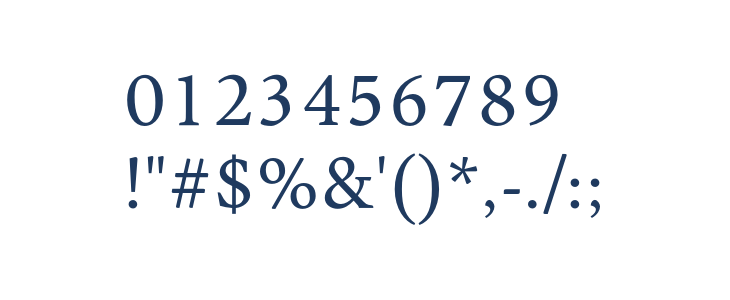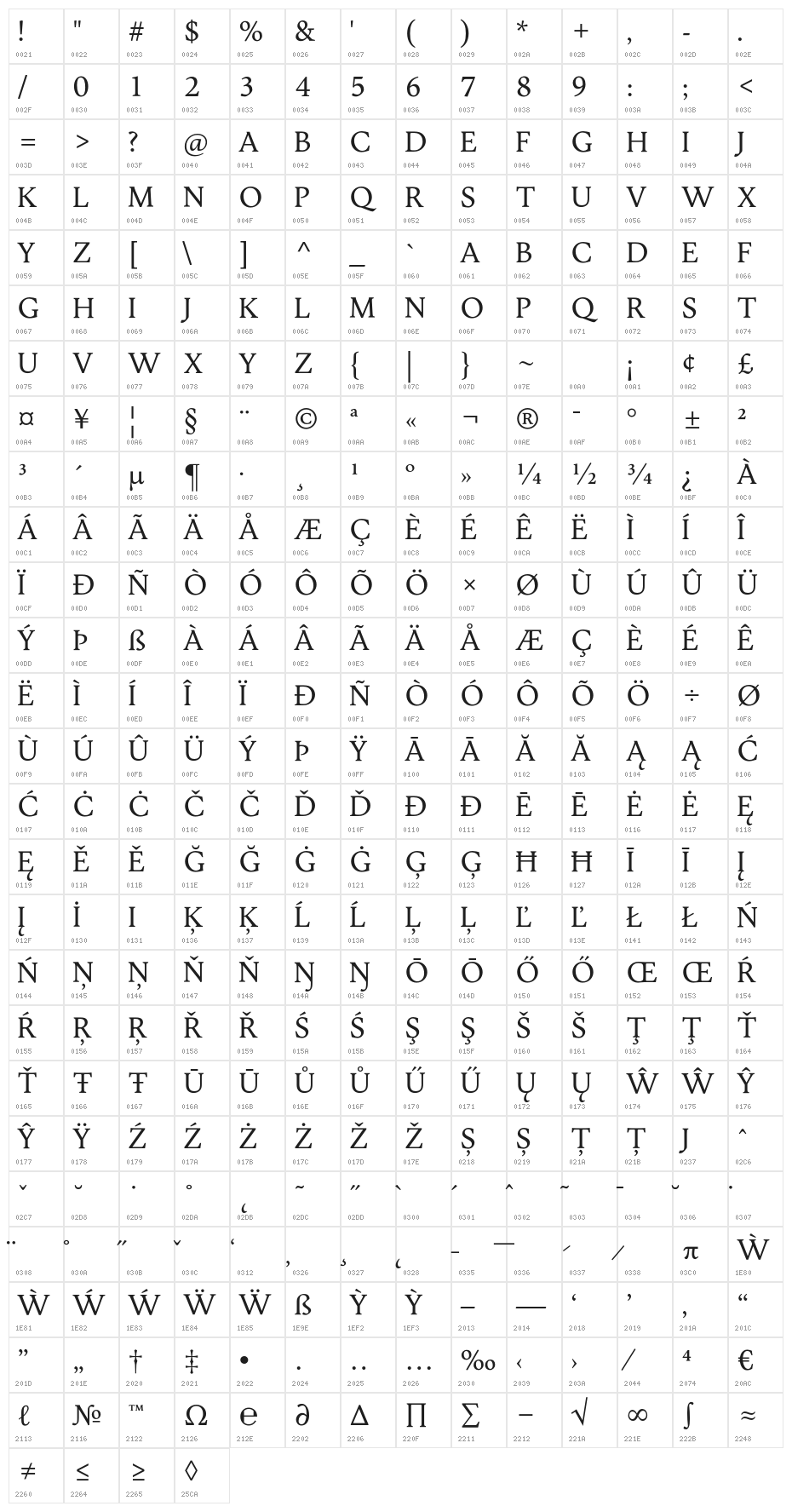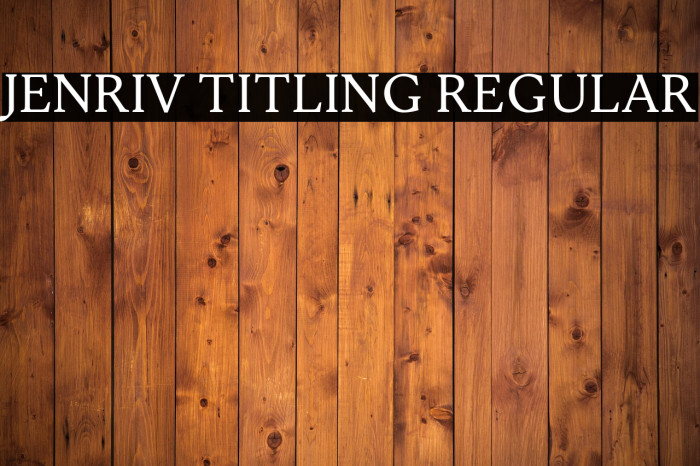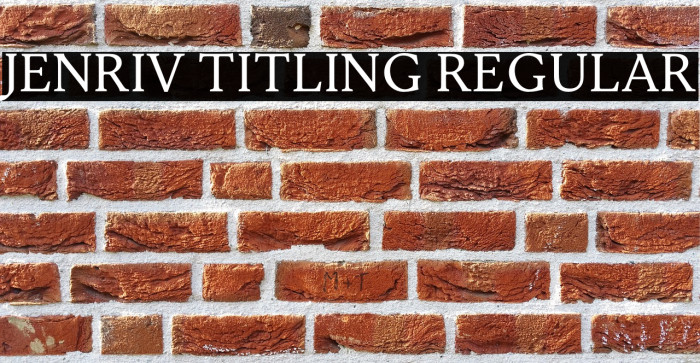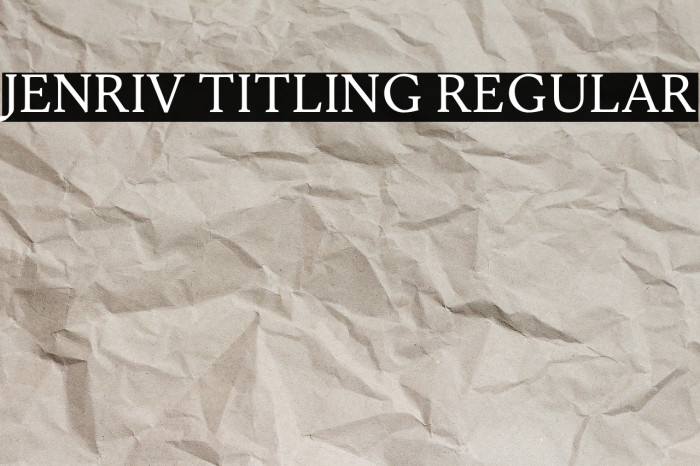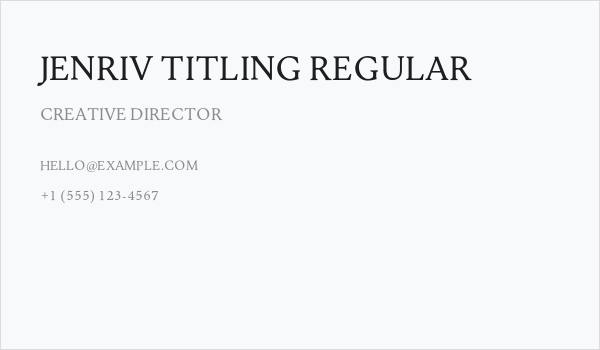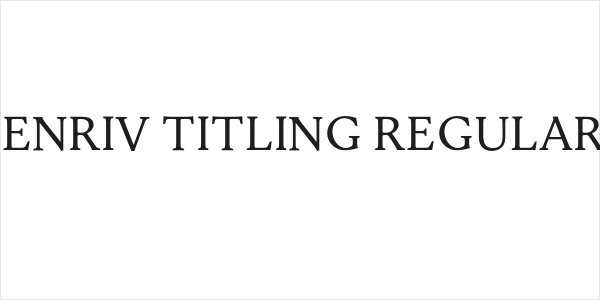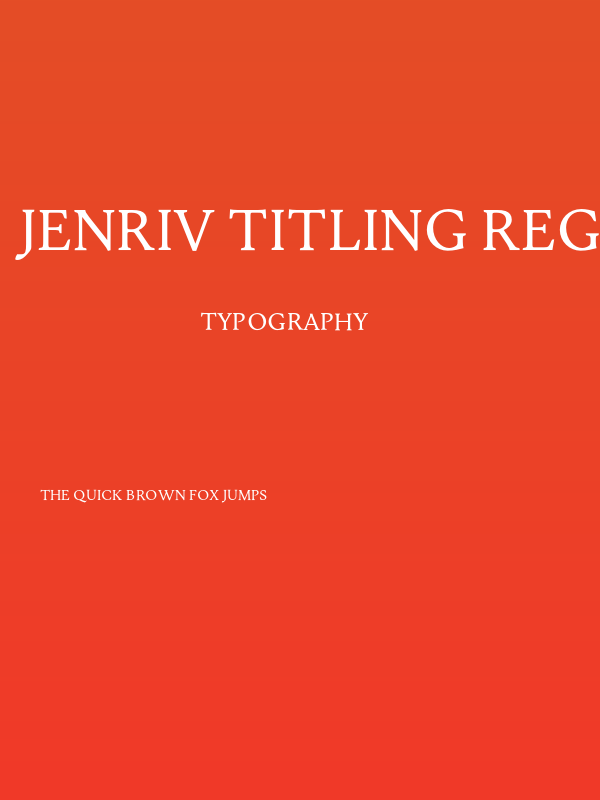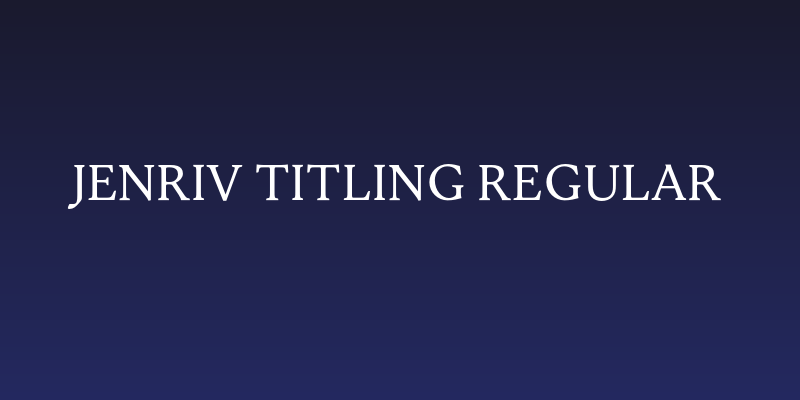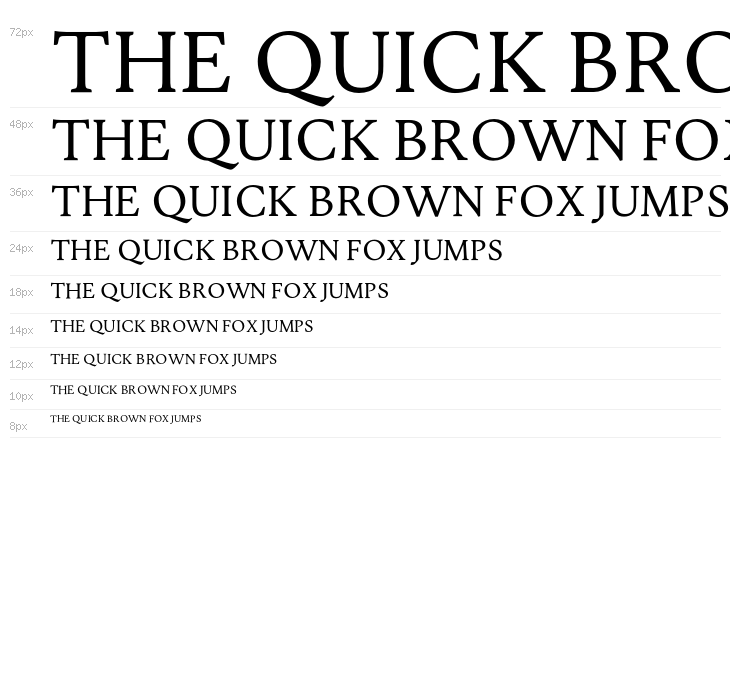
Jenriv Titling Regular Font
Jenriv Titling Regular Description
This font exhibits a classic serif style with elegant and refined strokes. The characters are well-proportioned, featuring sharp serifs and a balanced weight distribution. The uppercase letters are bold and commanding, while the lowercase letters maintain a consistent style, providing a harmonious appearance. The numerals are clear and distinct, making them easily readable. Special characters are designed with the same attention to detail, ensuring they blend seamlessly with the rest of the typeface. This font is suitable for projects that require a touch of sophistication and timeless appeal.
Overall StyleClassic
Proposed ProjectsIdeal for book covers, formal invitations, branding, and editorial design.